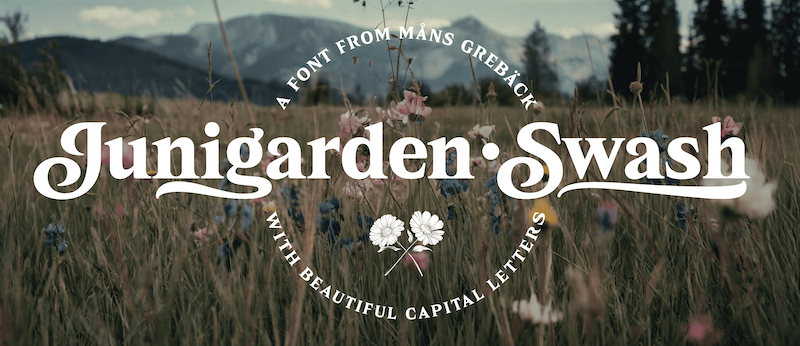
Preview and download Junigarden Swash Font. Created by Måns Grebäck in Fancy Retro styles with Free for personal use license.
NOTE: This font is for PERSONAL USE ONLY! To purchase a commercial license, visit: http://mn.sg/junigarden-swash Junigarden Swash evokes a warm, nostalgic feeling, blending vintage elegance with flowing swashes that add a decorative flair. The font strikes the perfect balance between boldness and delicacy. Use underscore _ anywhere in a word to make a swash. Pri_nce Multiple swasher make different swashes: Am_______ore For questions, please visit www.mn.sg/faq |